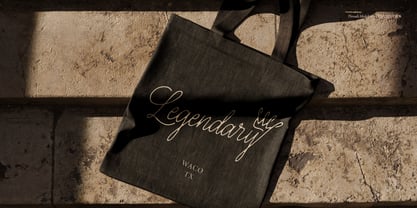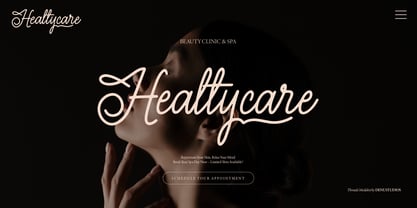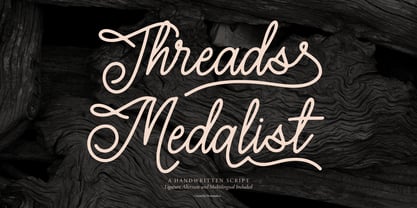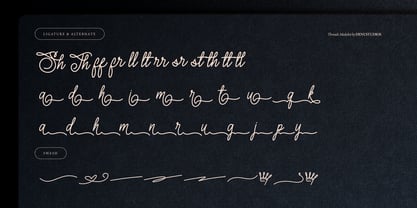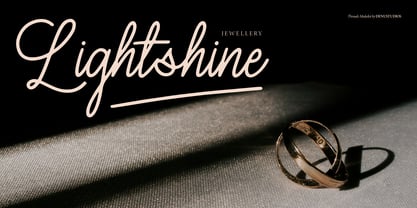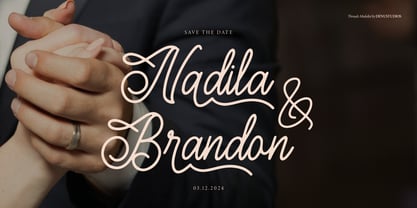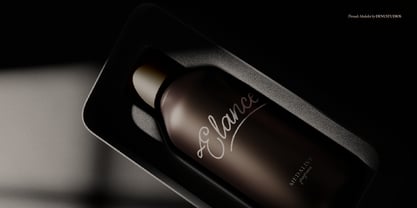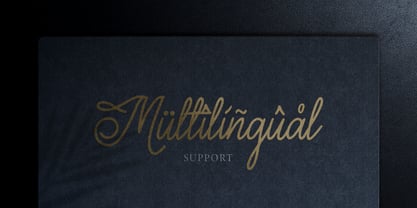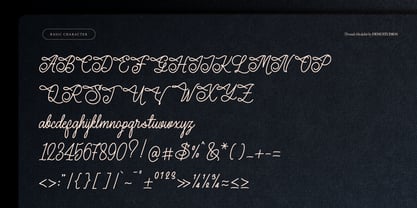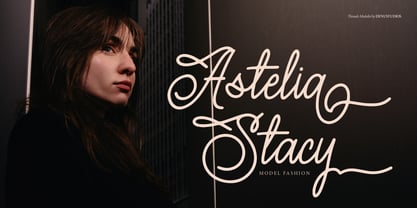
Threads Medalist
by Denustudio
The Threads Medalist Font Family was designed by Dede Nugraha and published by Denustudio. Threads Medalist contains 2 styles and family package options. More about this family
Threads Medalist | Handwritten Script, from Denustudios, suitable for any projects such as: logos, branding projects, homeware designs, product packaging, mugs, quotes, posters, shopping bags, t-shirts, book covers, name card, invitation cards, greeting cards, label, photography, watermark, special events, and all your other lovely projects that need a Handwritten Script taste.
• Alternate and Ligature
• Fonts include multilingual support